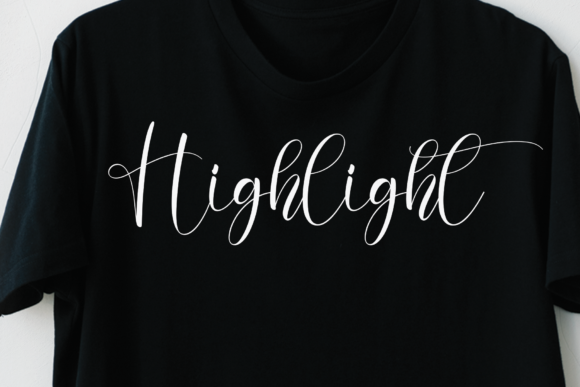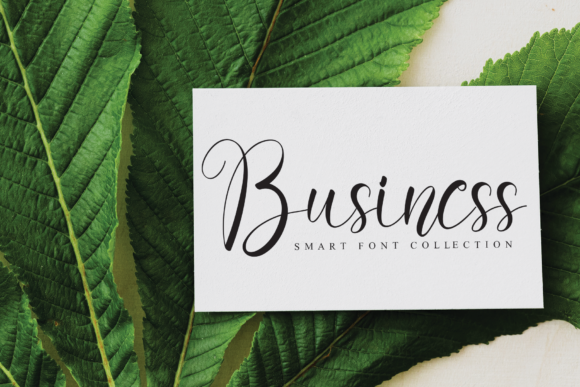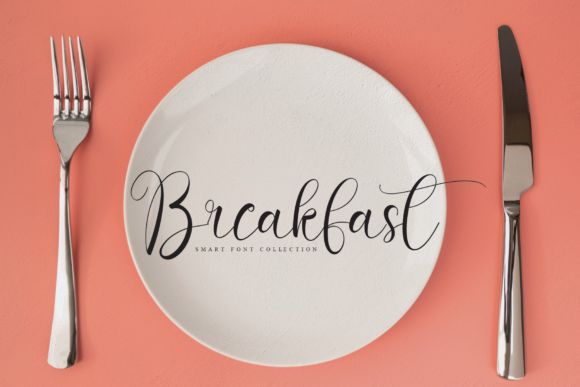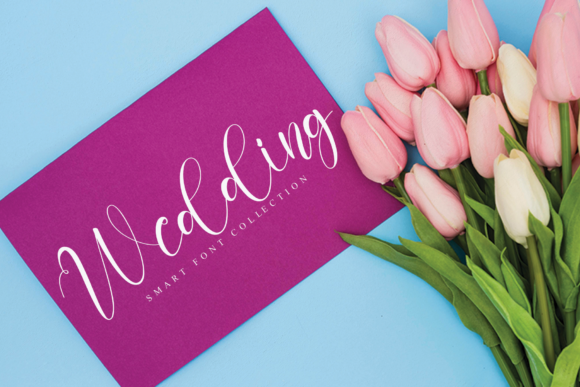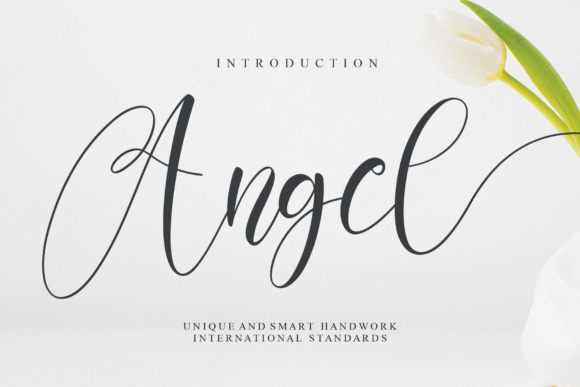
The Angel Font: A Designer’s New Best Friend
I still remember the design project that led me to discover the Angel font. I was working on a client’s branding package, and I needed a font that was both elegant and understated. I’d spent hours scouring font websites, but nothing seemed quite right. That was when I stumbled upon Angel – a stylish and delicate script font that instantly captured the essence of my client’s brand. In this article, I’ll share my experience with the Angel font, its features, and how to make the most of it in your designs.
An Honest Review of Angel Font
What I Love About Angel Font
• ✨ Clean and smooth vibe: Angel font has a thin, smooth quality that makes it perfect for designs where you want to convey elegance and sophistication.
• ✅ Highly versatile: Whether you’re working on a logo, a brochure, or a social media graphic, Angel font adapts seamlessly to different design contexts.
• 💫 Easy on the eyes: The font’s delicate nature makes it a great choice for designs where you want to avoid overwhelming your audience.
While Angel font is an excellent choice for many designs, there are a few things to keep in mind:
• 🤔 Legibility at small sizes: Like many script fonts, Angel can be a bit tricky to read at very small sizes. Make sure to test it in your design to ensure it works for your audience.
• ⚠️ Overuse of swashes: While Angel font comes with beautiful swashes, overusing them can make your design look cluttered. Use them sparingly to add a touch of elegance.
A Practical Guide to Using Angel Font
The Story Behind Angel Font
While the origins of Angel font are unclear, it’s likely that it was designed with the intention of creating a beautiful, elegant script font that’s both versatile and easy to read. The designer may have been inspired by classic calligraphy and hand-lettering techniques, with a goal of creating a font that’s both modern and timeless.
Q: What is the Angel font best used for?
A: The Angel font is best used for designs where you want to convey elegance, sophistication, and a touch of whimsy. It’s perfect for branding, logos, brochures, and social media graphics.
Q: Is the Angel font suitable for body text?
A: While Angel font is beautiful, it’s not the best choice for body text due to its script nature and potential legibility issues at small sizes. Use it for headlines, titles, or quotes instead.